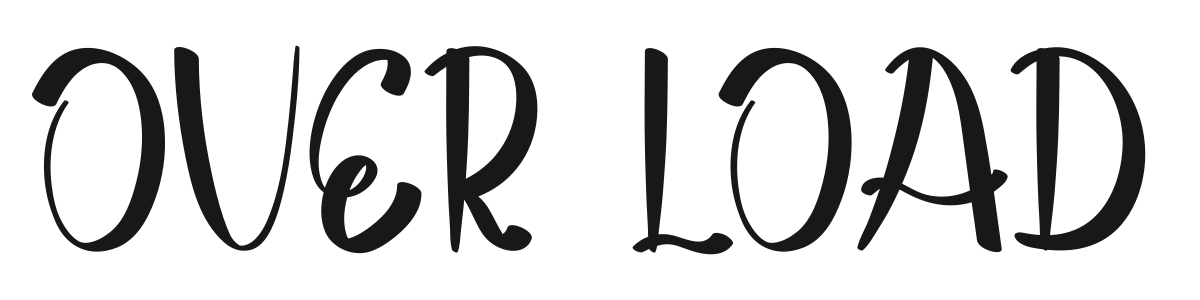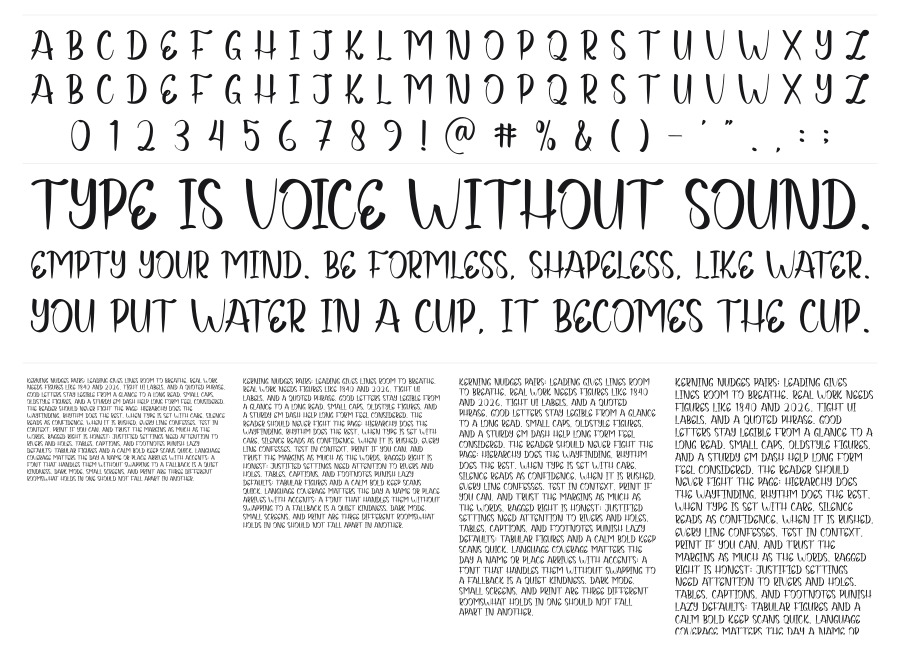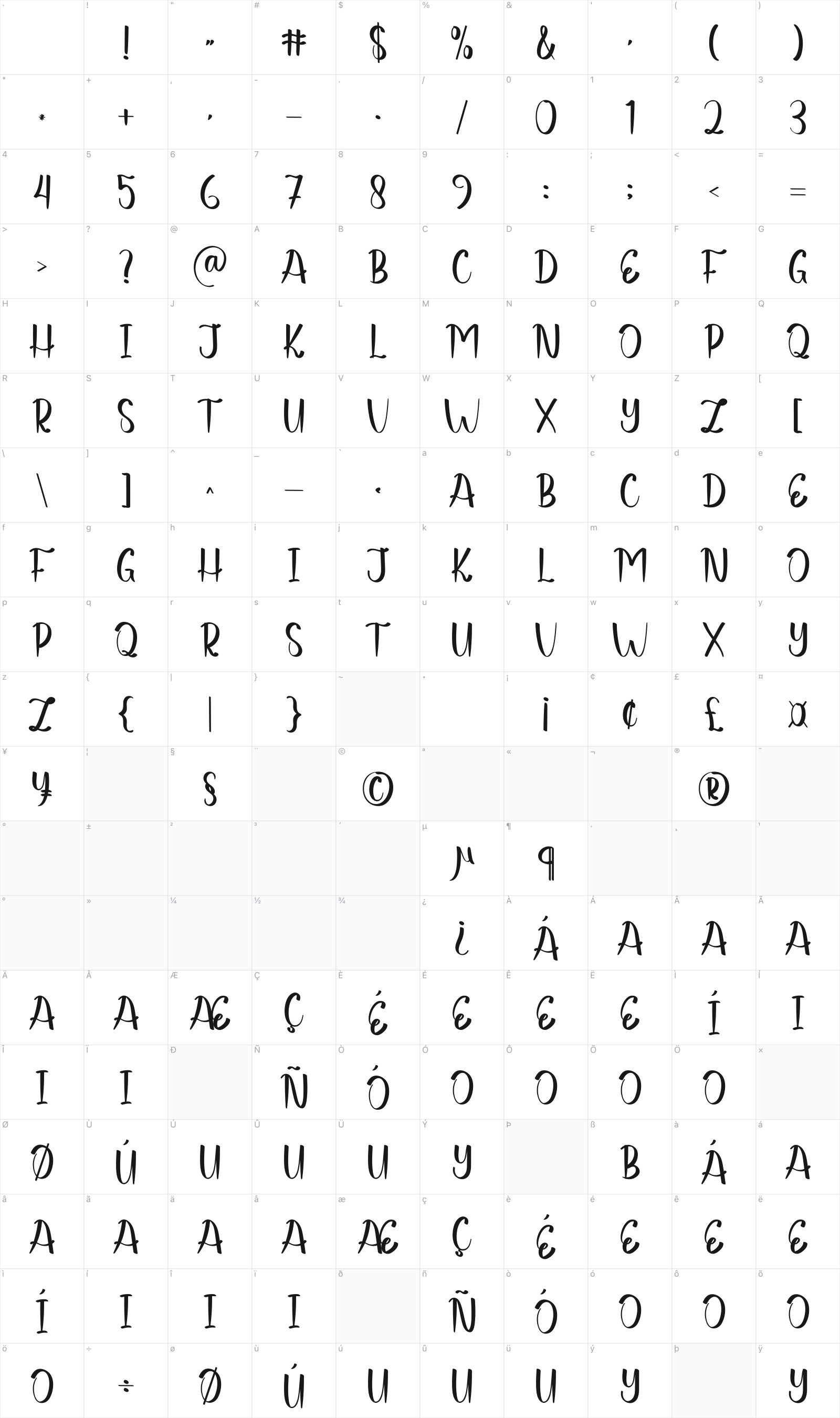
Over Load
Over Load is a sweet upright handwritten display font with lively stroke contrast and expressive swash terminals. The characters carry a casual pen-written energy that feels warm and celebratory without tipping into formal calligraphy. It works well on invitations, packaging, and any project that calls for a friendly, handcrafted touch.